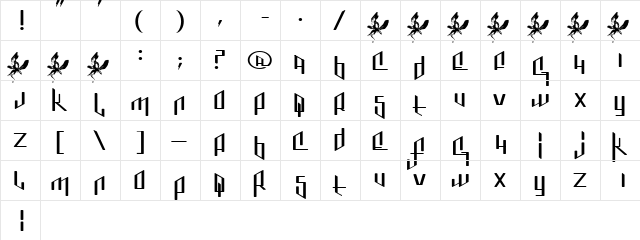
Jenice Regular
Design Context for Jenice Typeface
Jenice is a composed and adaptable typeface that performs quietly and consistently across a wide range of design contexts.
Pro Tip: Use Jenice in both headline and body roles to test its range before committing to a single application.